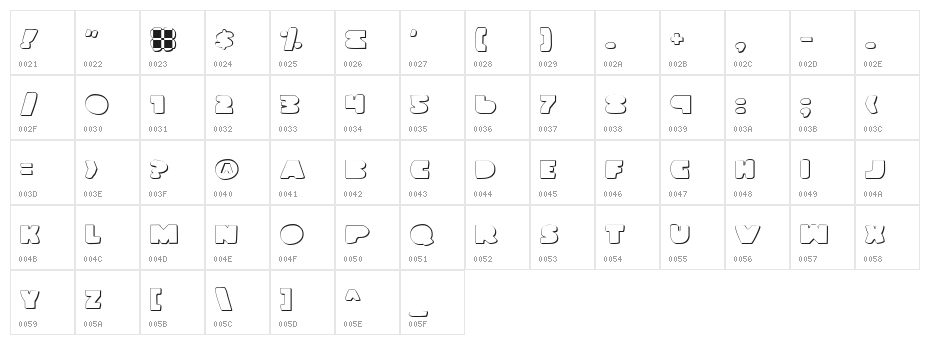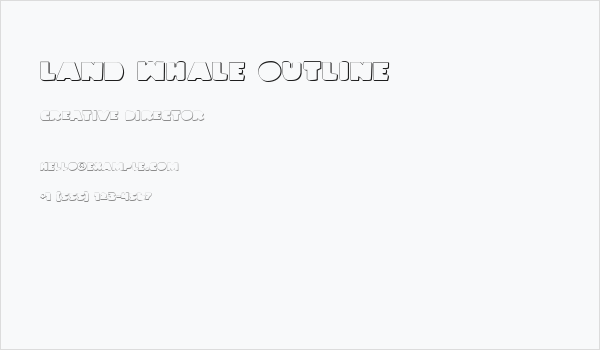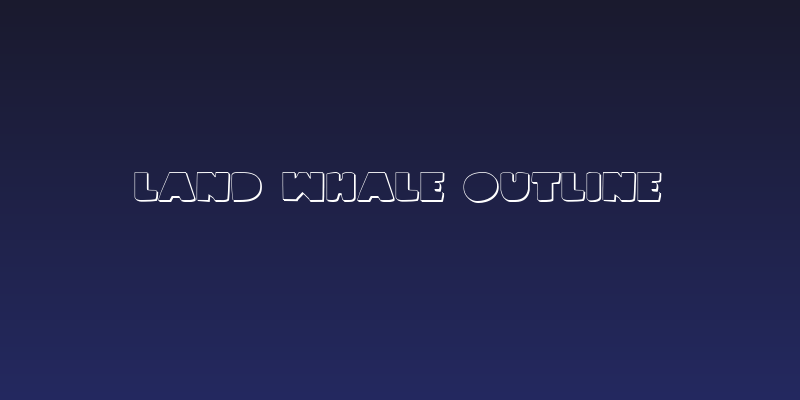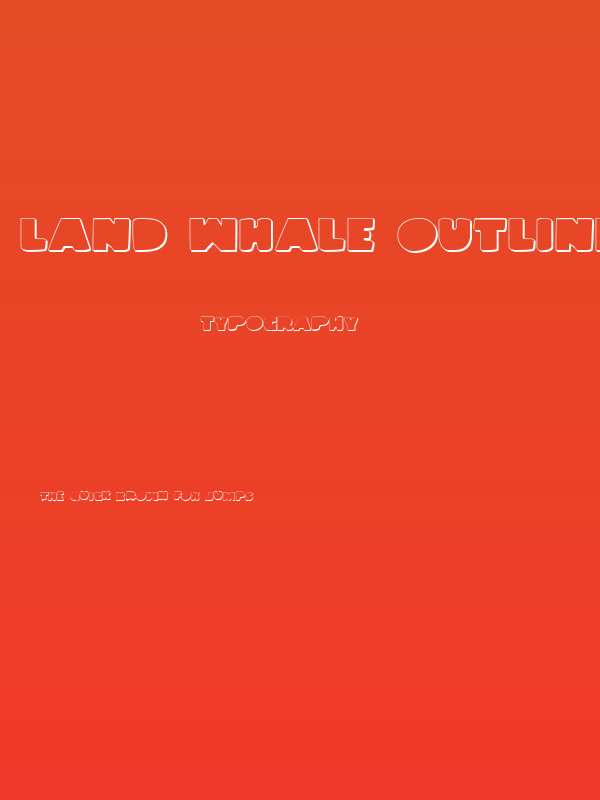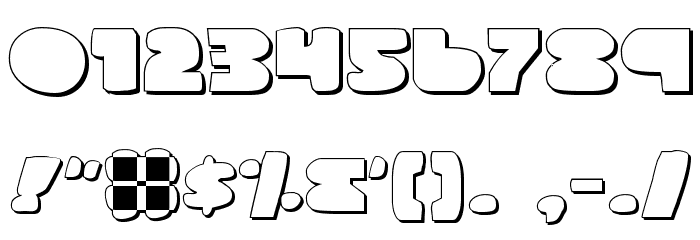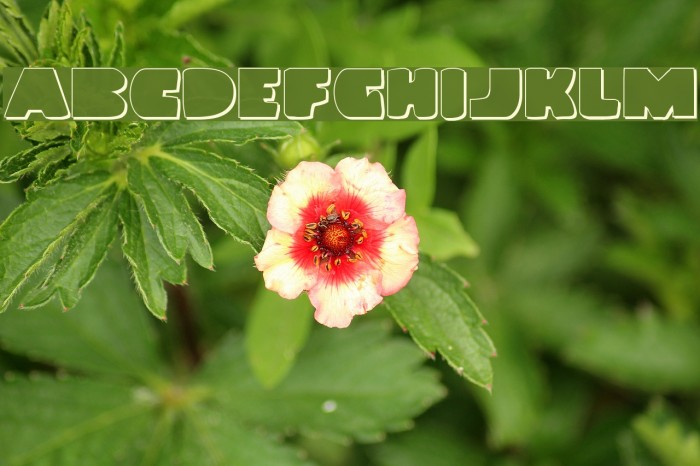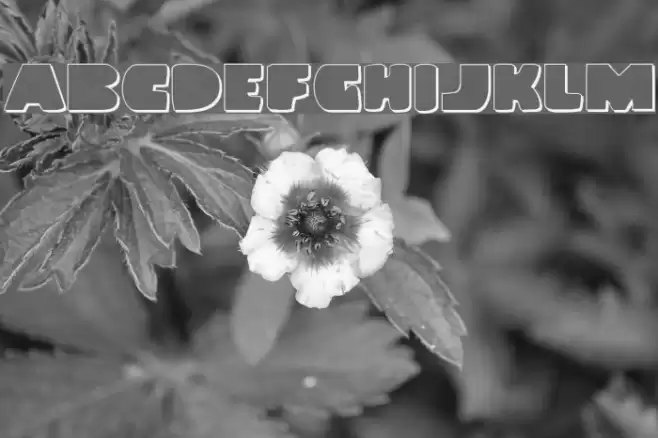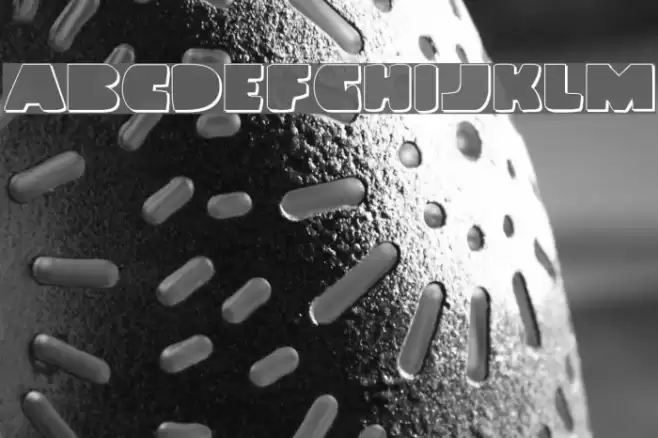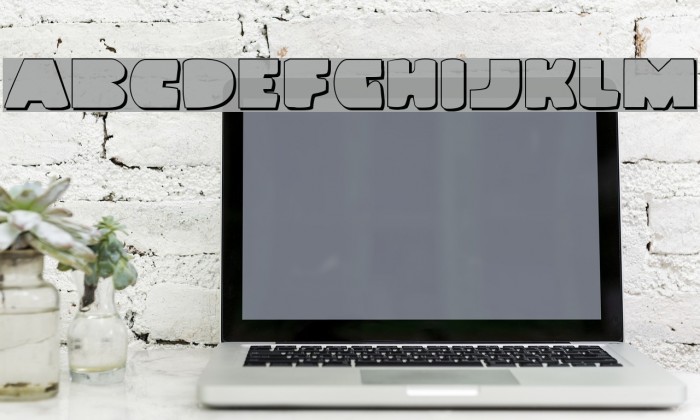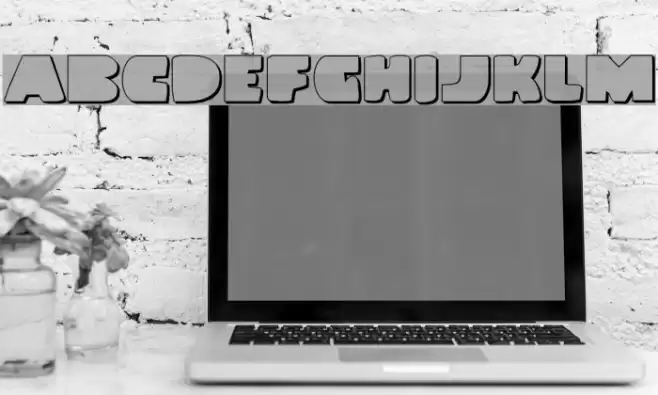
Land Whale Outline Font
Land Whale Outline Description
This font features a bold, playful outline style with a chunky, rounded appearance. The characters are designed with a thick border, giving them a three-dimensional look. The uppercase and lowercase letters maintain a consistent width, creating a uniform and cohesive appearance. The numbers and special characters follow the same design principles, ensuring a harmonious look across all glyphs. This font's unique style makes it stand out, making it ideal for creative and eye-catching designs.
| Overall Style | Playful, Modern |
| Proposed Projects | Ideal for posters, children's books, playful branding, and creative headlines. |